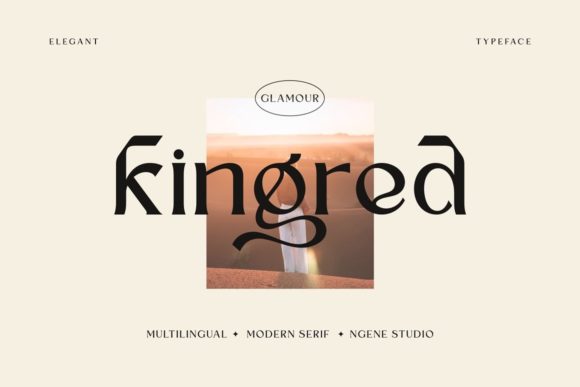
Introducing Kingred Font, the perfect blend of vintage charm and classic elegance. This handmade display typeface with delicate serif fonts is sure to captivate your heart and elevate your design projects to new heights. Created by the talented Ngene, Kingred Font is here to make a statement.
Are you ready to add a touch of timeless beauty to your creations? Kingred Font draws inspiration from the rich heritage of classic western culture and the graceful allure of girly design. Its soft, classic style with a vintage touch will transport you to a bygone era, evoking emotions of nostalgia and enchantment.
Why settle for ordinary when you can have extraordinary? Kingred Font is your key to unlocking a world of possibilities. With its versatility and charm, this font is the perfect choice for logotypes, badges, clothing designs, posters, and even wedding invitations. Let your imagination run wild as Kingred Font brings your visions to life.
Embrace the allure of the past with Kingred Font's intricate detailing and unique character. Its carefully crafted serifs add an air of sophistication, while its handcrafted feel adds a personal touch to your designs. Each letter is a work of art, allowing you to create truly stunning typography that will leave a lasting impression.
Unleash your creativity and add a touch of elegance to your next project. Kingred Font is your secret weapon for captivating your audience and standing out from the crowd. Whether you're designing for a romantic wedding, a vintage-inspired brand, or simply aiming to add a touch of class, this font is the answer.